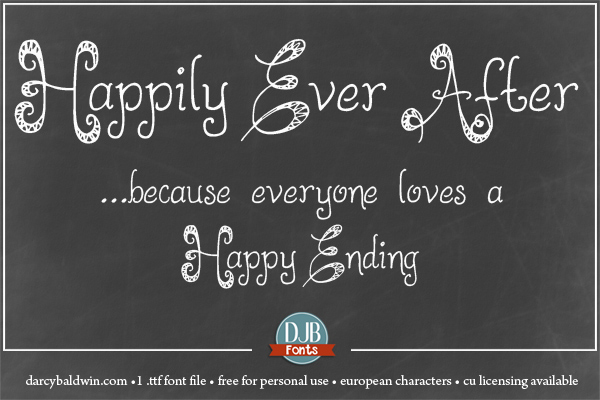
Preview and download DJB Happily Ever After Font. Created by Darcy Baldwin in Fancy Curly styles with Free for personal use license.
This font is free for personal use. Any commercial use such as logos, web design, product sales, embroidery font end-sales, books, apps, etc. require a commercial use license available here: http://darcybaldwin.com/commercial-use DJB Happily Ever After is a hand-drawn, ornate font couple. One font contains ornate capitals that can be used for Monograms or other decorative items, and the other contains a more straightforward fancy typeface. This font contains 1.ttf/.otf font file with full upper and lower case alpha, numbers, most punctuation, arrows, a few dingbats and European language glyphs. If you'd like to purchase it for commercial use, please purchase a license at: http://darcybaldwin.com/commercial-use/ https://www.facebook.com/DarcyBaldwinFontography |